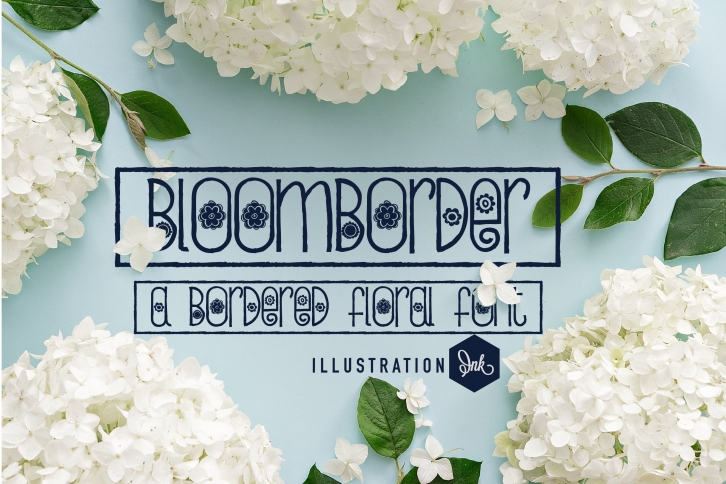
Bloomborder is a fun and unique handwritten font that has lines surrounding it and is dotted with flowers throughout. Use the rectangle brackets to box off your words and underscore for a blank area of double lines. A little bit quirky, this font looks incredibly adept in a wide variety of contexts!